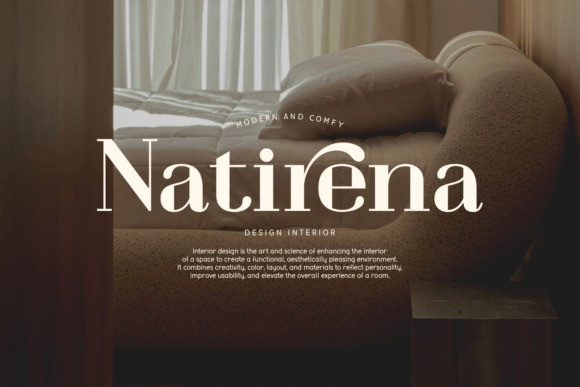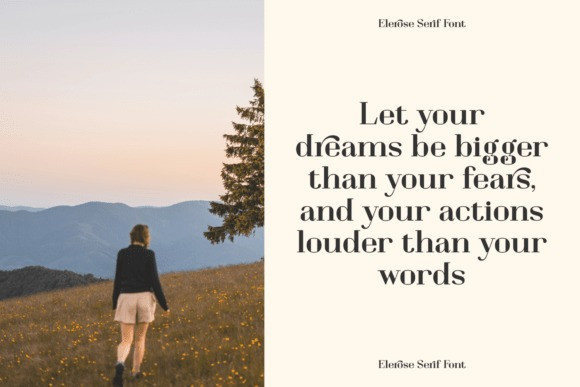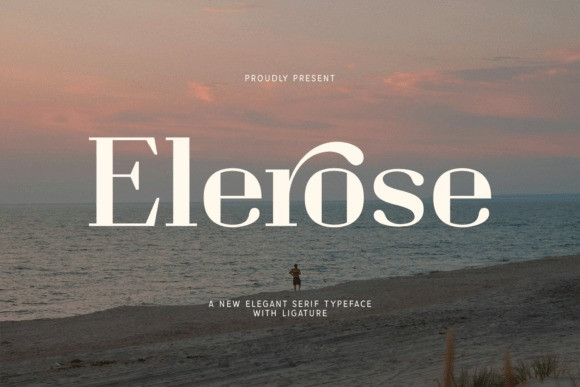
Elerose Font
Elerose Font, a new elegant serif typeface. The tranquil and beautiful setting perfectly complements the font’s graceful and sophisticated style, which is noted to include special ligatures.